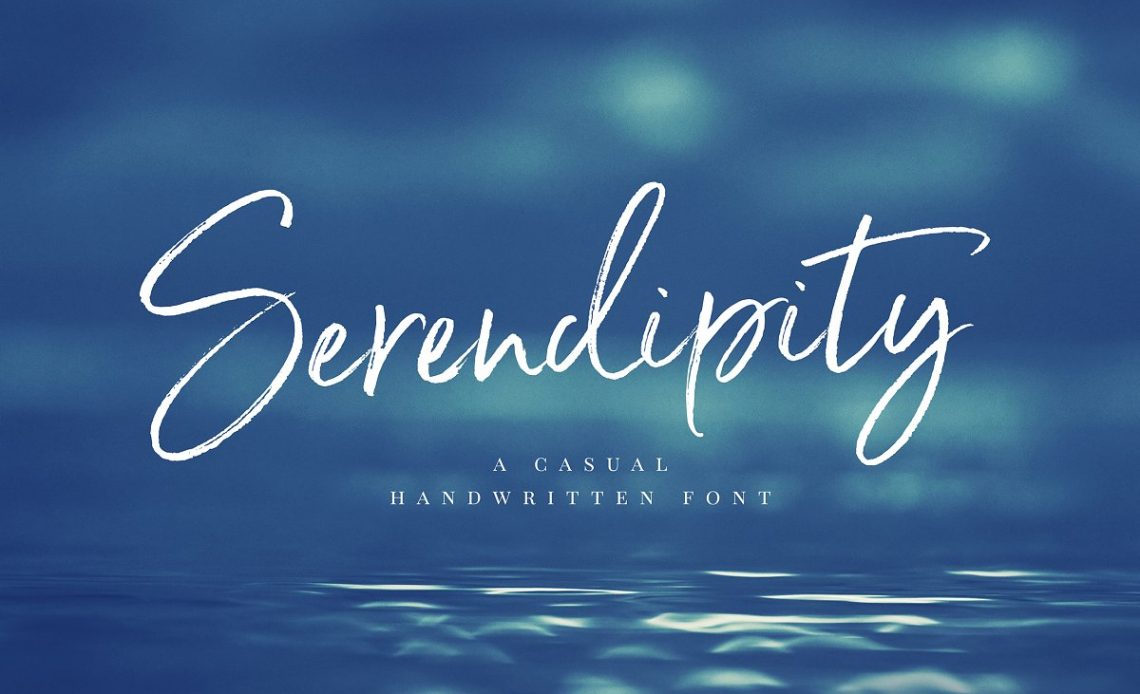
Are you looking for the best font for web browsing? Say hello to Serendipity Handwritten Font! Created by Nicky Laatz, this font is a lovingly handwritten brush script that exudes an air of grace and flamboyancy. It's perfect for creating stunning designs that will capture your audience's attention.
What sets Serendipity apart is its large selection of extra letters, allowing you to write one word in a million different ways. With two sets of alternate lowercase letters, a set of alternate uppercase letters, and a set of double letter ligatures, you can play around and create words that look exactly how you need them to look.
So, whether you're designing business logos, stationery, packaging, branding, or anything else, Serendipity Handwritten Font is the perfect choice for you. It's time to take your designs to the next level and make them stand out with this amazing font.